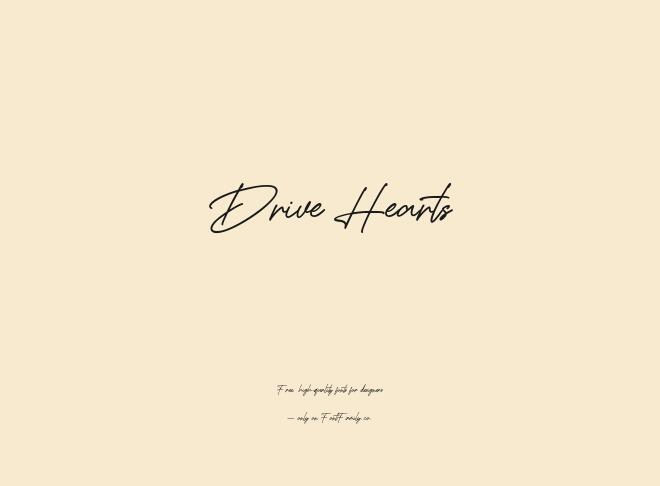
Drive Hearts Font
Drive Hearts Font is a playful and retro script font with a handwritten style. This font, designed by Creative Studio, captures the essence of carefree, youthful design. Its unique heart embellishments bring an element of fun to any project, making it perfect for event invitations, greeting cards, apparel designs, and more. Drive Hearts Font stands out from other fonts due to its distinctive style and the emotive resonance it brings to the table. Its versatility and charm make it an excellent choice for both digital and print design. With its unique style and playful undertones, Drive Hearts Font can help make your designs feel more personalized and engaging. This font is free for personal use, making it a fantastic choice for designers looking to add a touch of whimsy to their work.